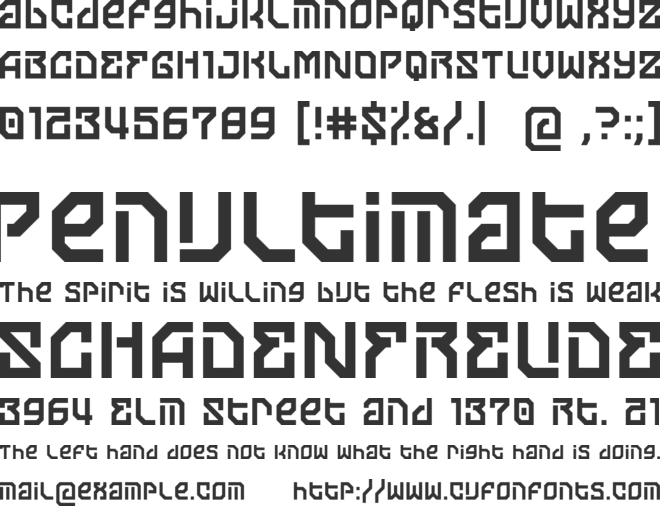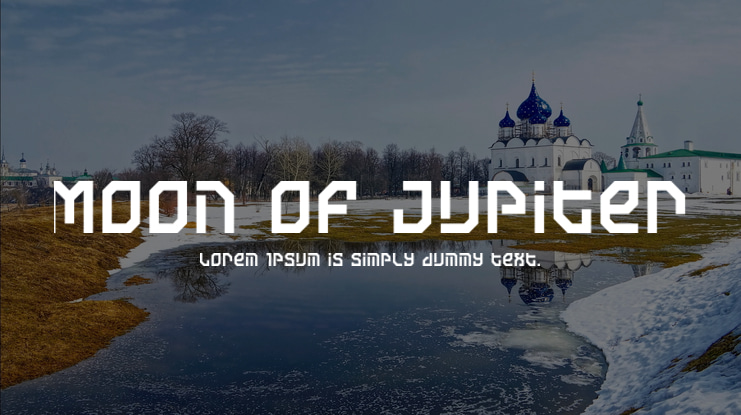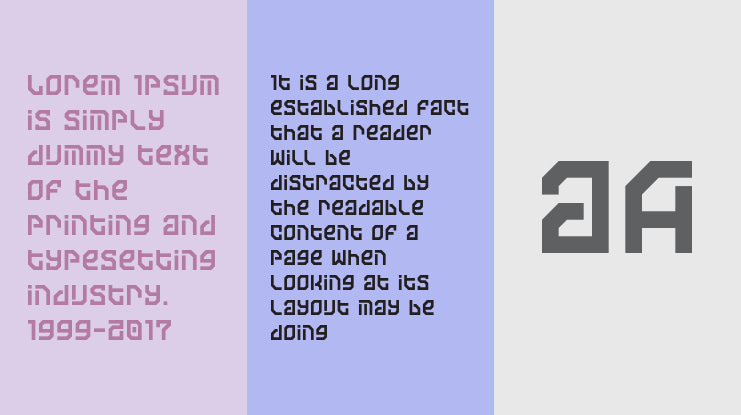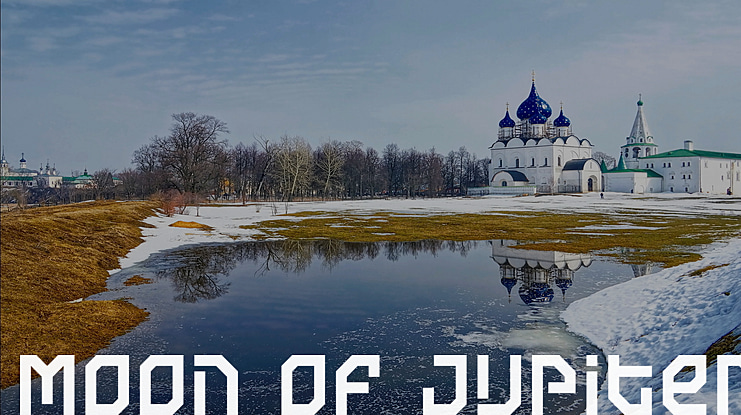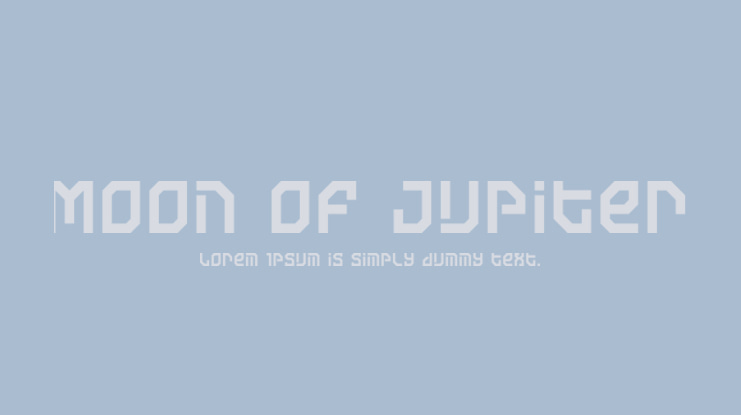
Moon of Jupiter Font
Frédéric Rich
Moon of Jupiter is a sci-fi square font, made to be displayed on spaceships from the entire universe (assuming they use latin or cyrillic letters).